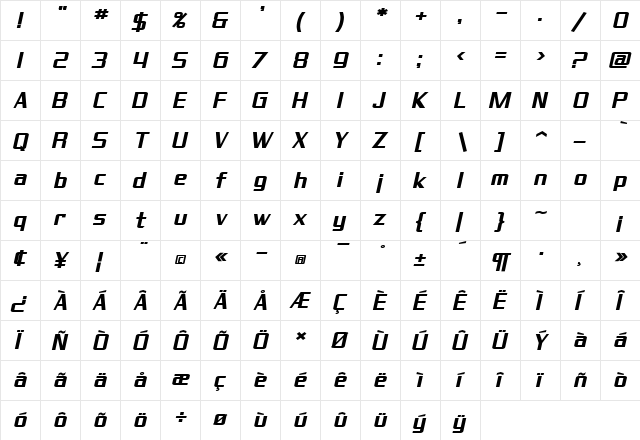
SF Theramin Gothic Bold Oblique
Design Context for SF Theramin Gothic Typeface
SF Theramin Gothic takes a clean, functional approach — its unadorned letterforms prioritise legibility and work reliably across screen and print environments. Its italic angle brings a sense of urgency and motion to the letterforms. Its bold stroke weight gives it real presence on the page.
Well-suited to navigation labels, product packaging, and anywhere legibility at scale is essential.
Font Pairing: Use SF Theramin Gothic for headlines alongside a lighter-weight sans or serif for body copy to establish clear visual hierarchy.
Pro Tip: Use SF Theramin Gothic for UI labels, navigation, and short-form body copy where clean legibility is the priority.